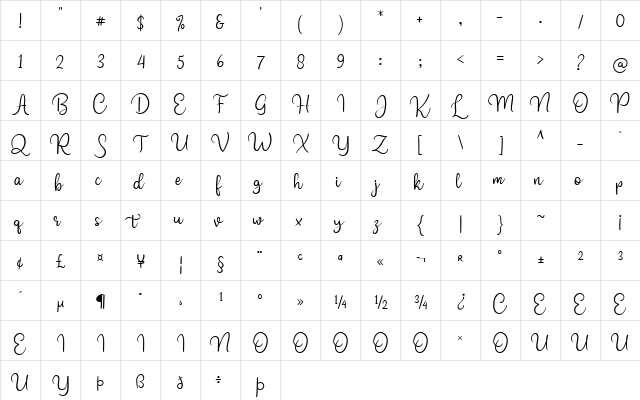
Relista Regular
| Designer | Jos Gandos |
Design Context for Relista Typeface
Relista is a composed and adaptable typeface that performs quietly and consistently across a wide range of design contexts.